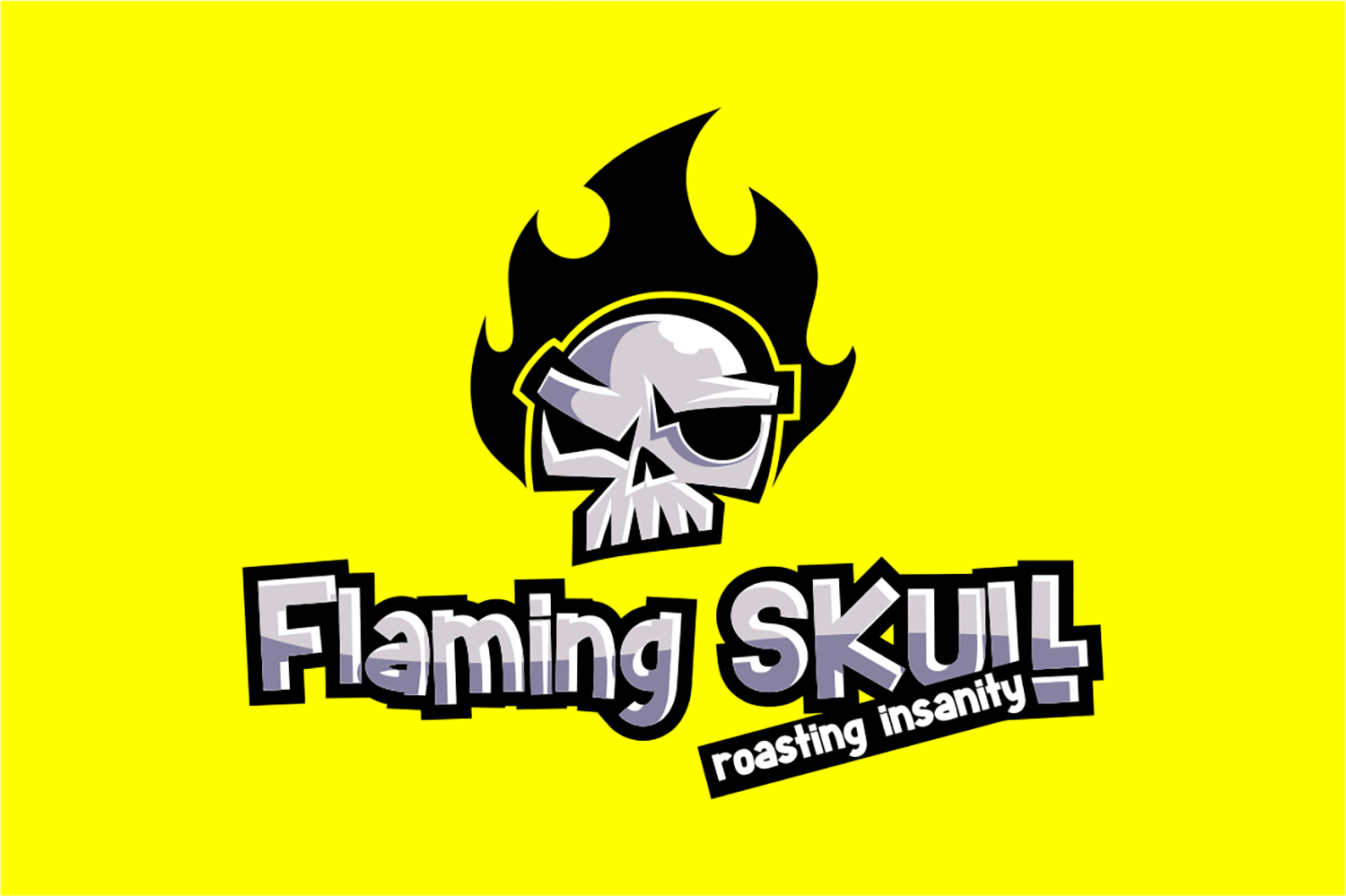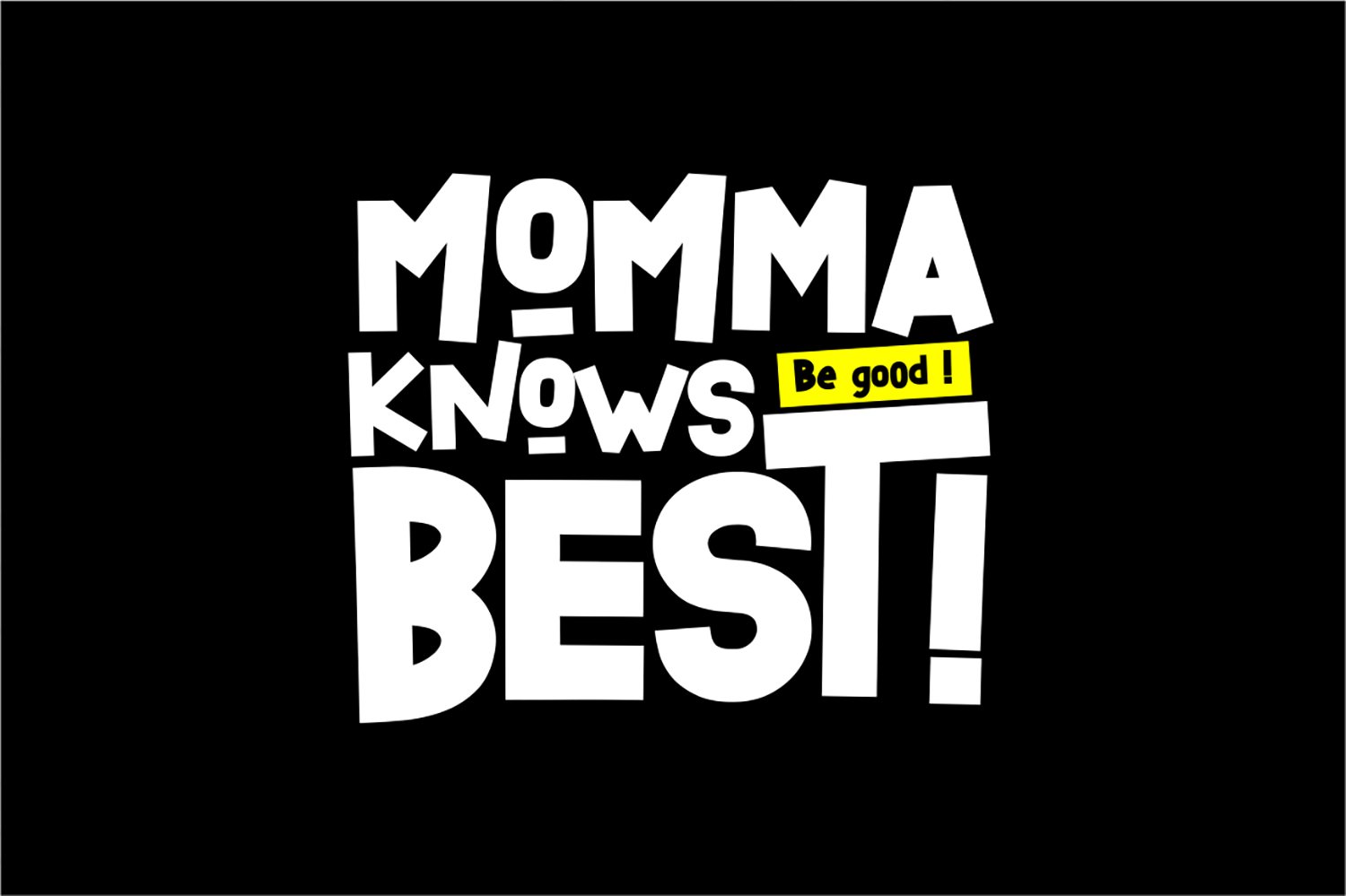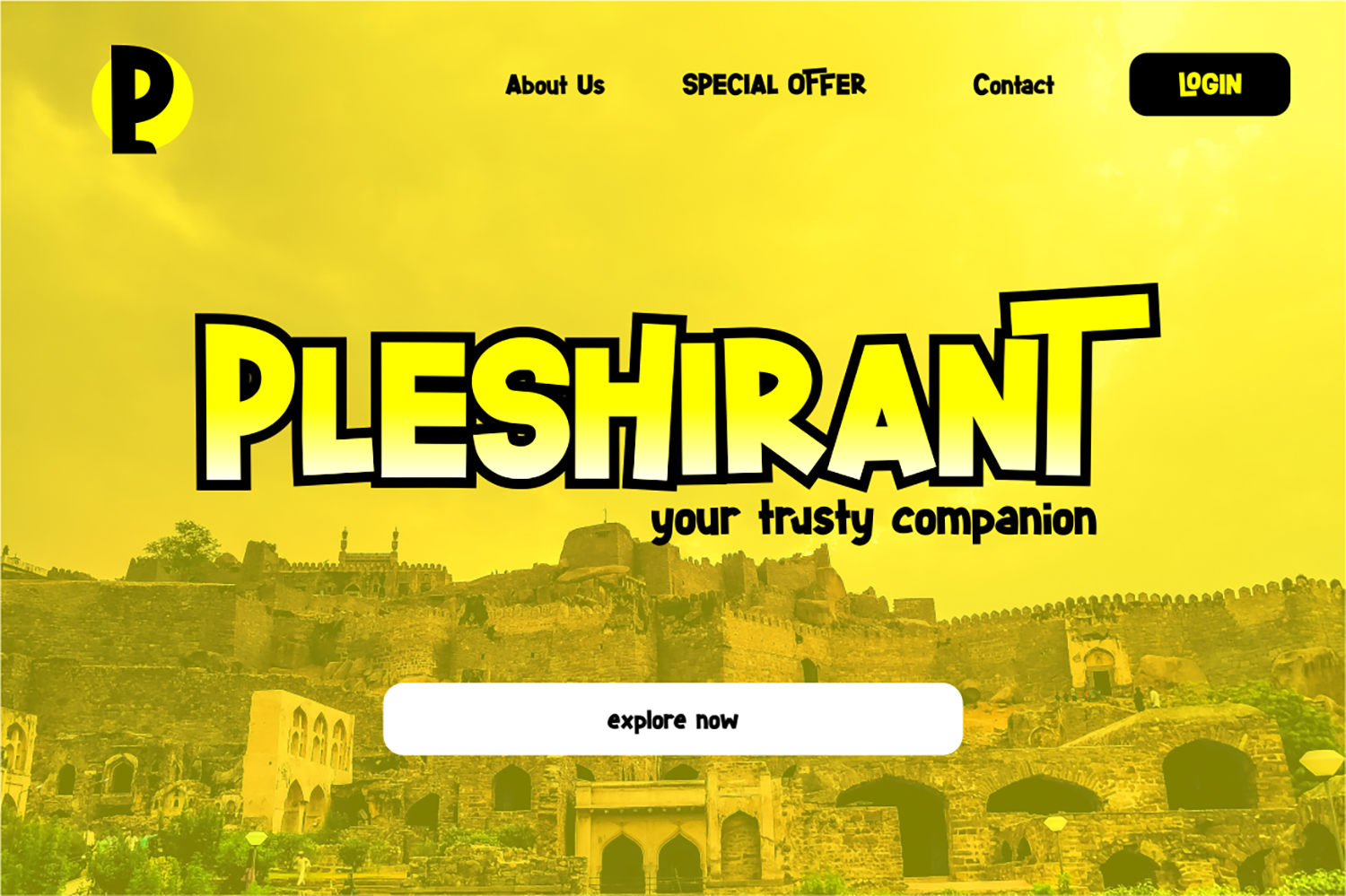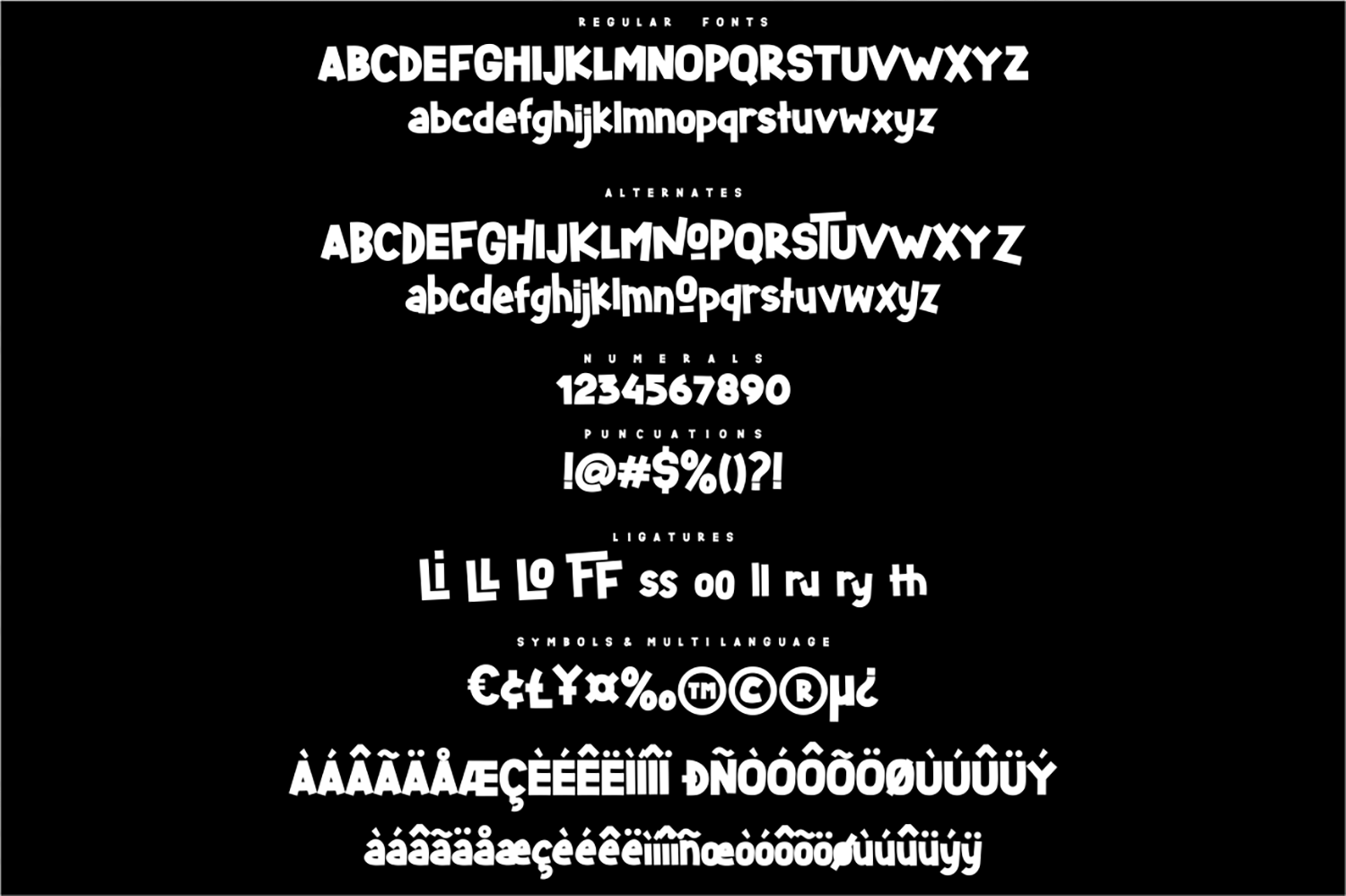
Starlight Free Font
Starlight Free Font is free for personal use only and perfect for your character logo design, summer quote, and that powerful attitude poster. This free typeface was designed by a talented Sahirul Iman. If you like it don’t forget to check out the full version.